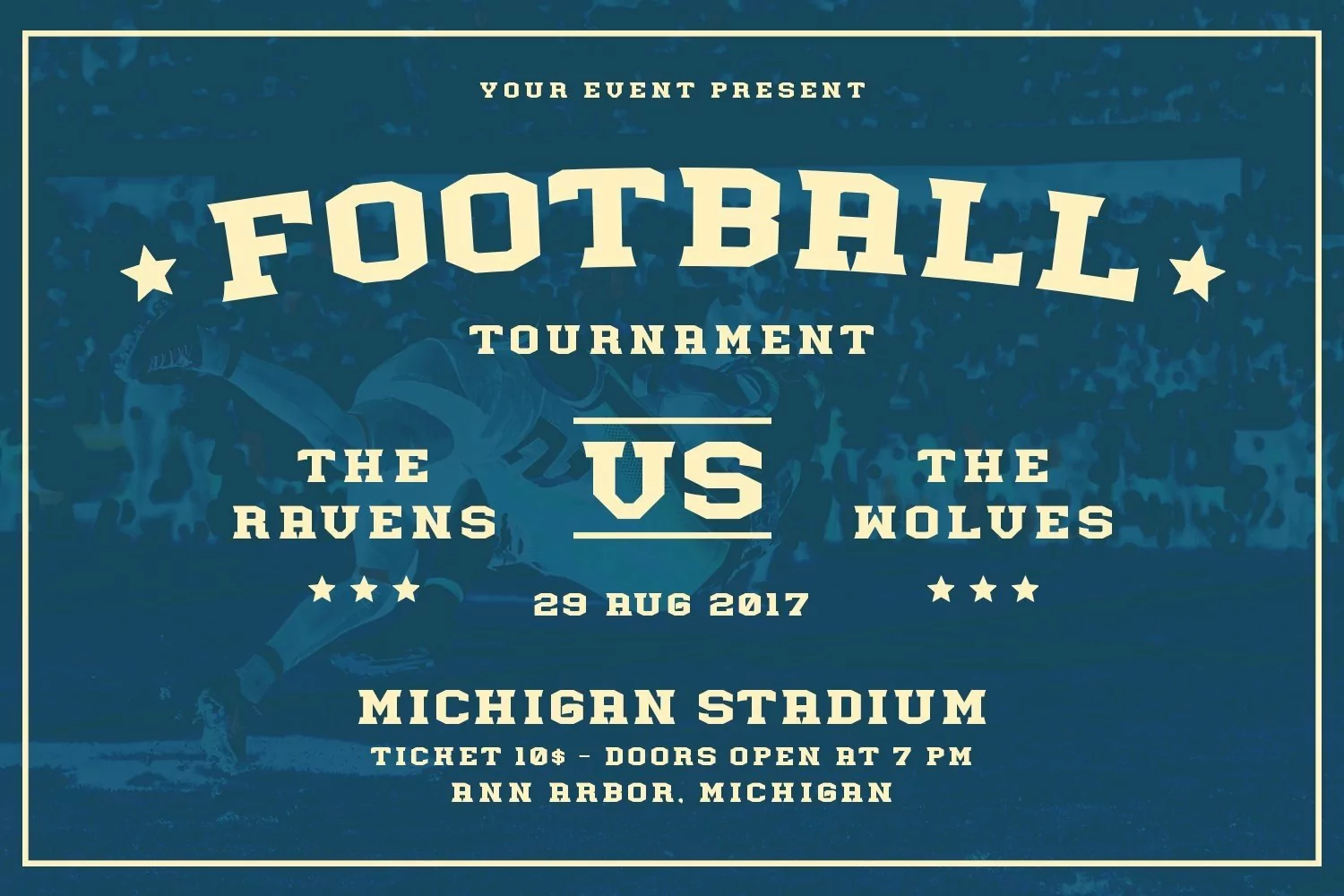
Web Font Legacy
Legacy is a display typeface. Perfect for to book covers, posters, packaging, sports needs, branding sport teams, header, tittle book, magazine and many more.